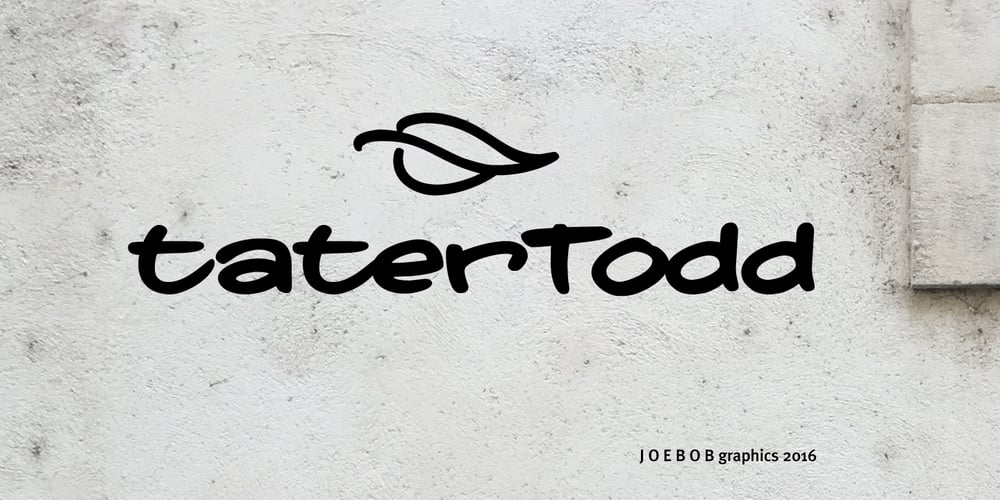
TaterTodd Font Family was designed by Jeroen “Joebob” van der Ham and published by JOEBOB graphics. TaterTodd contains 1 styles and family package options. After noticing there was a lack of a wide and bold script font in out library, taterTodd was created with that in mind. It was written with a brushtipped felt-pen, which made for the small thick and thin differences in the font. These can mainly be found in the uppercase characters and the font works quite well in only upper-case. TaterTodd is very suitable for menu’s, especially when used in white on a dark background.